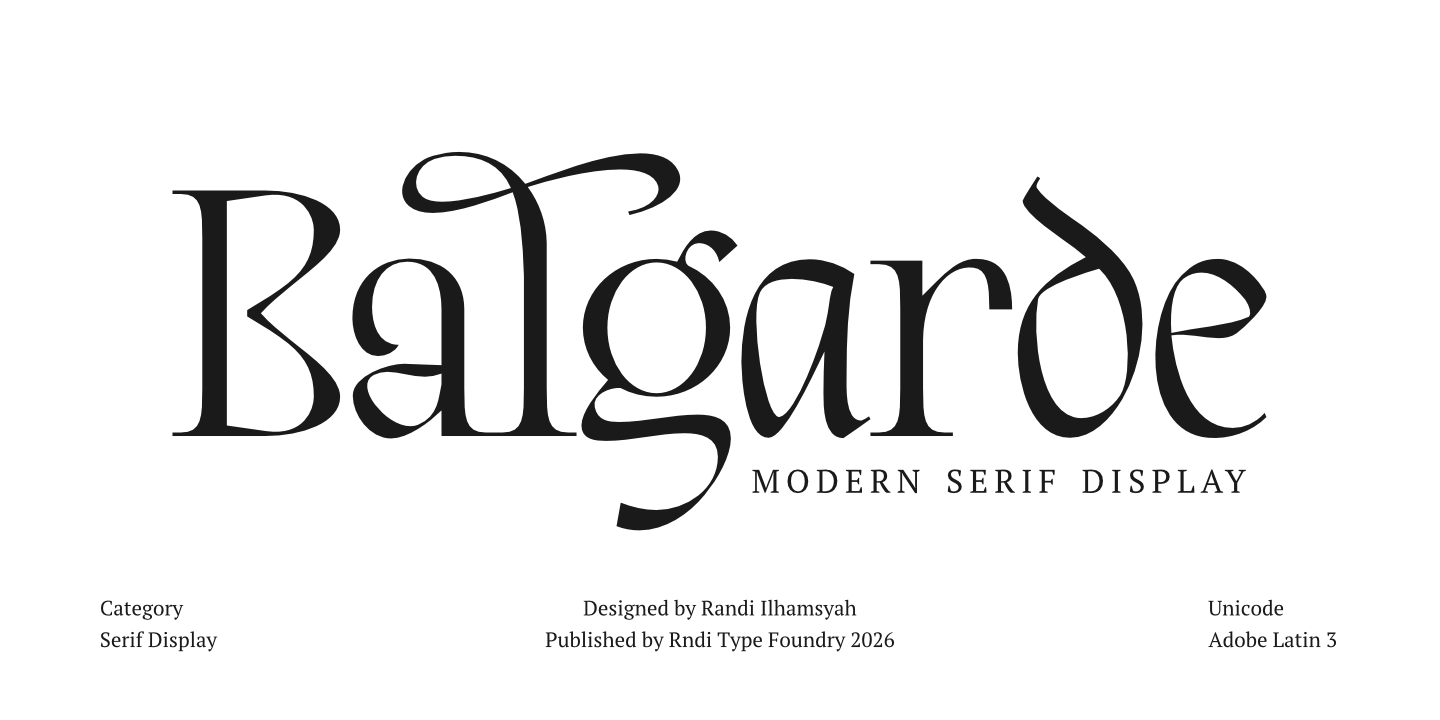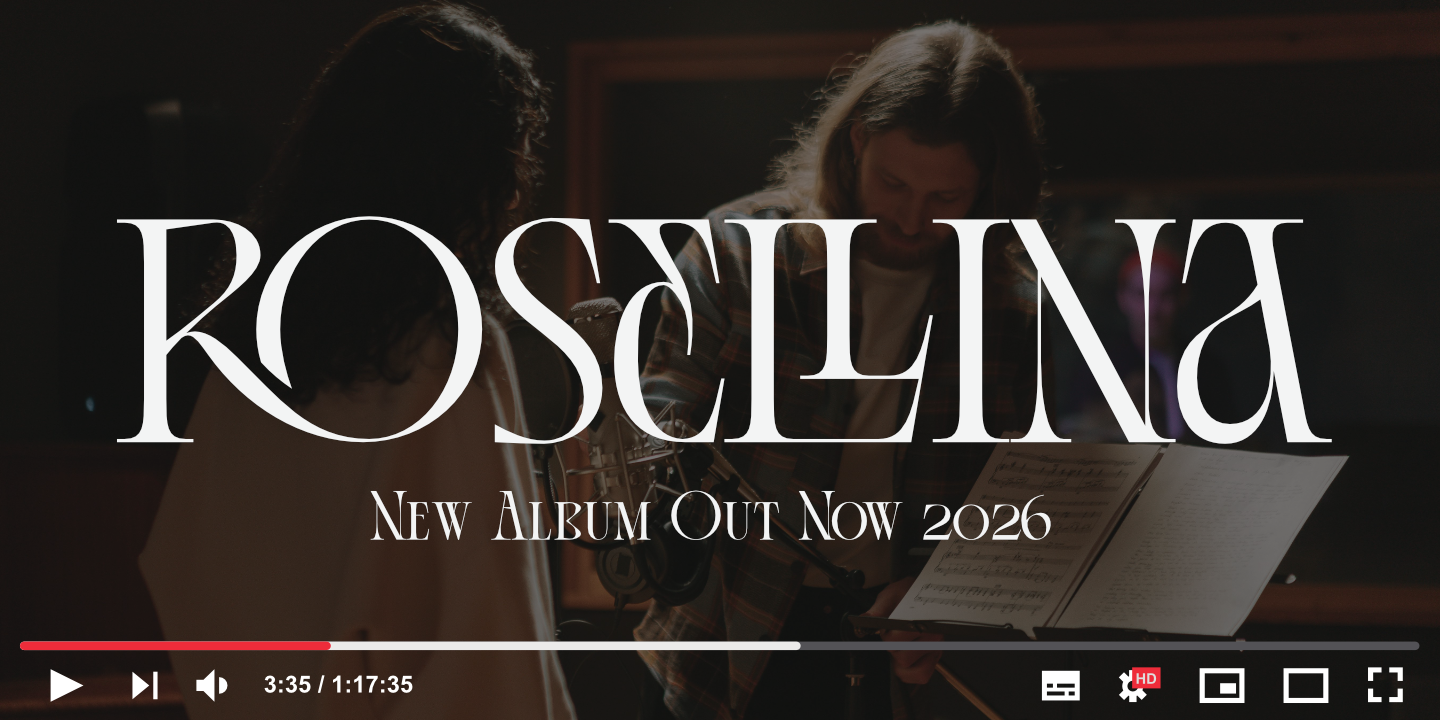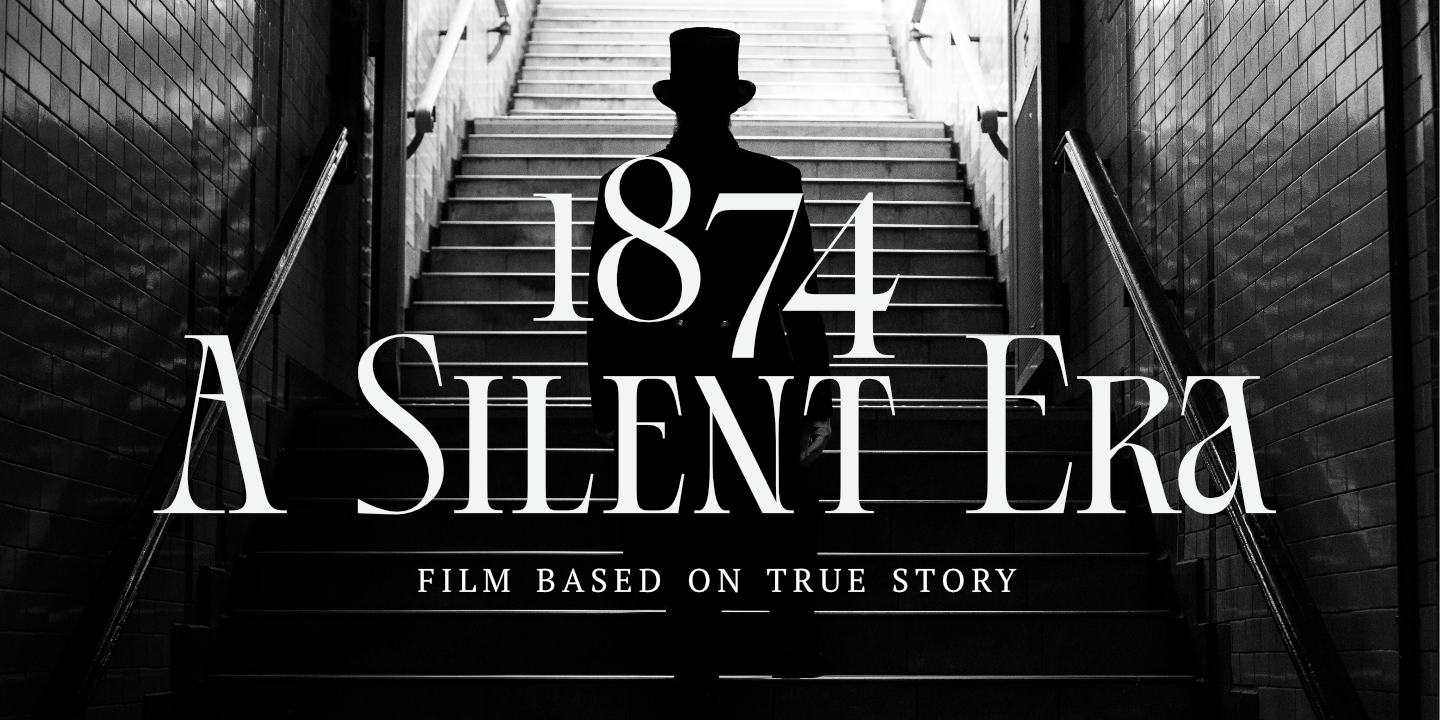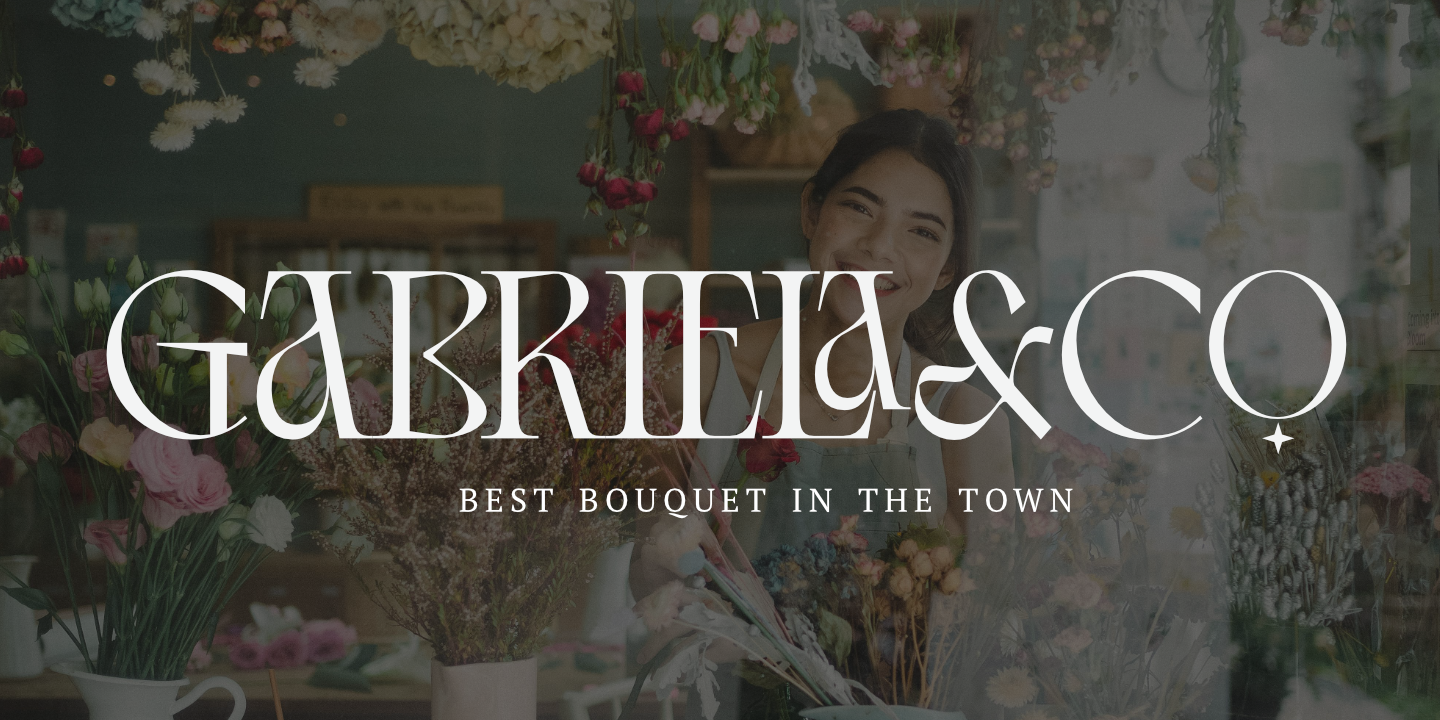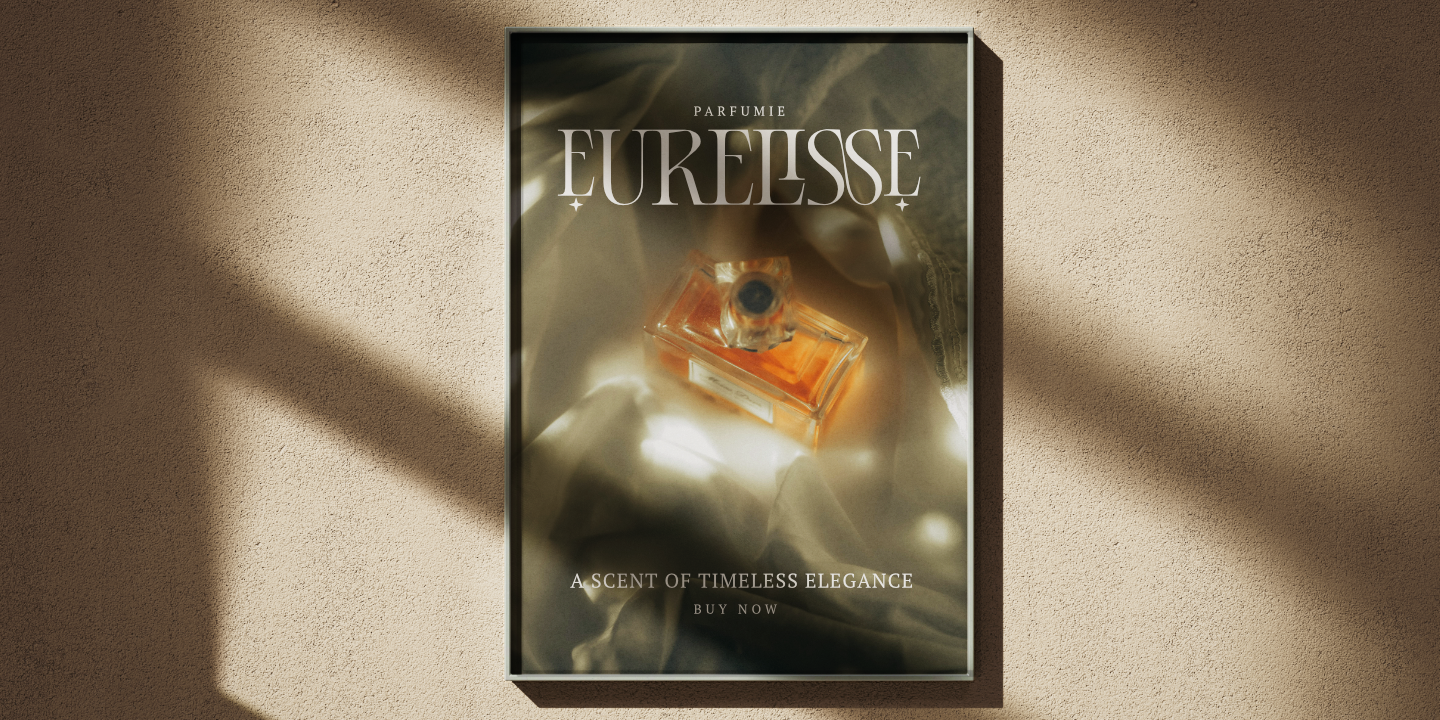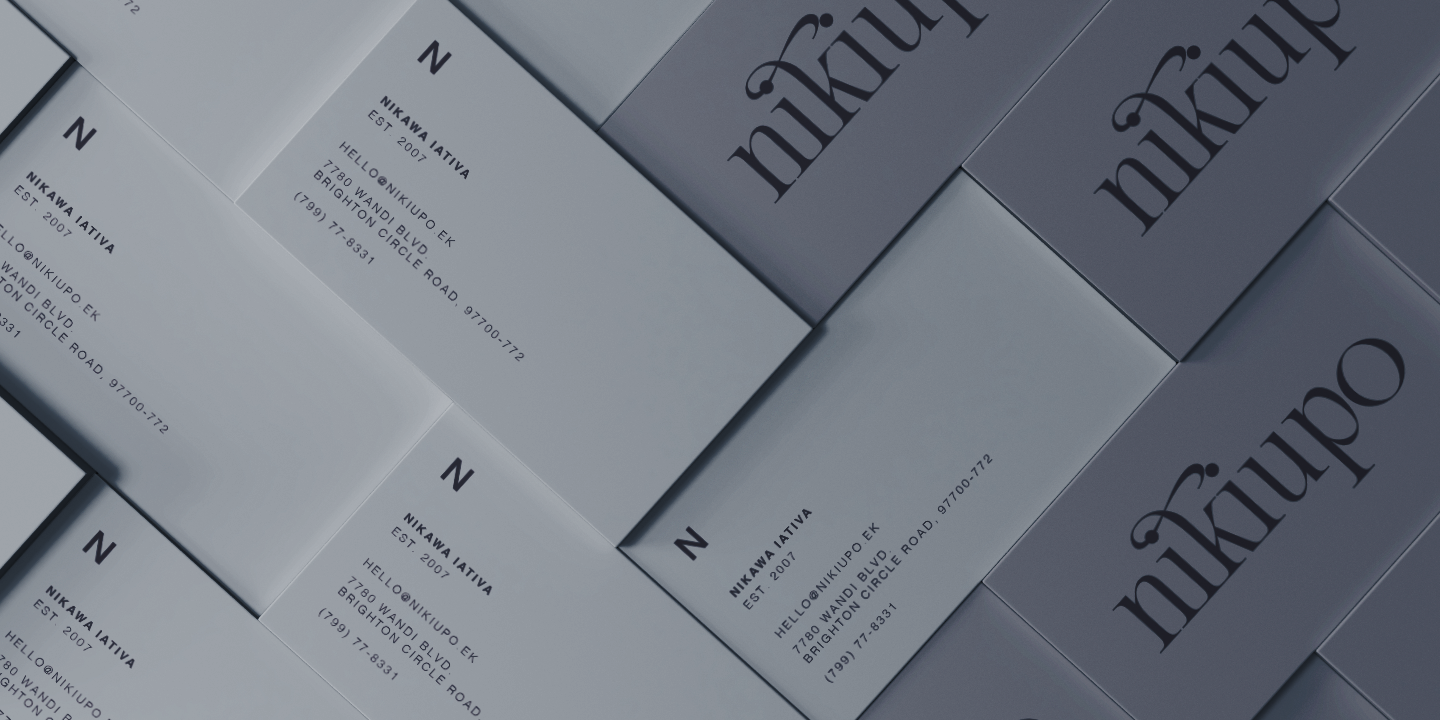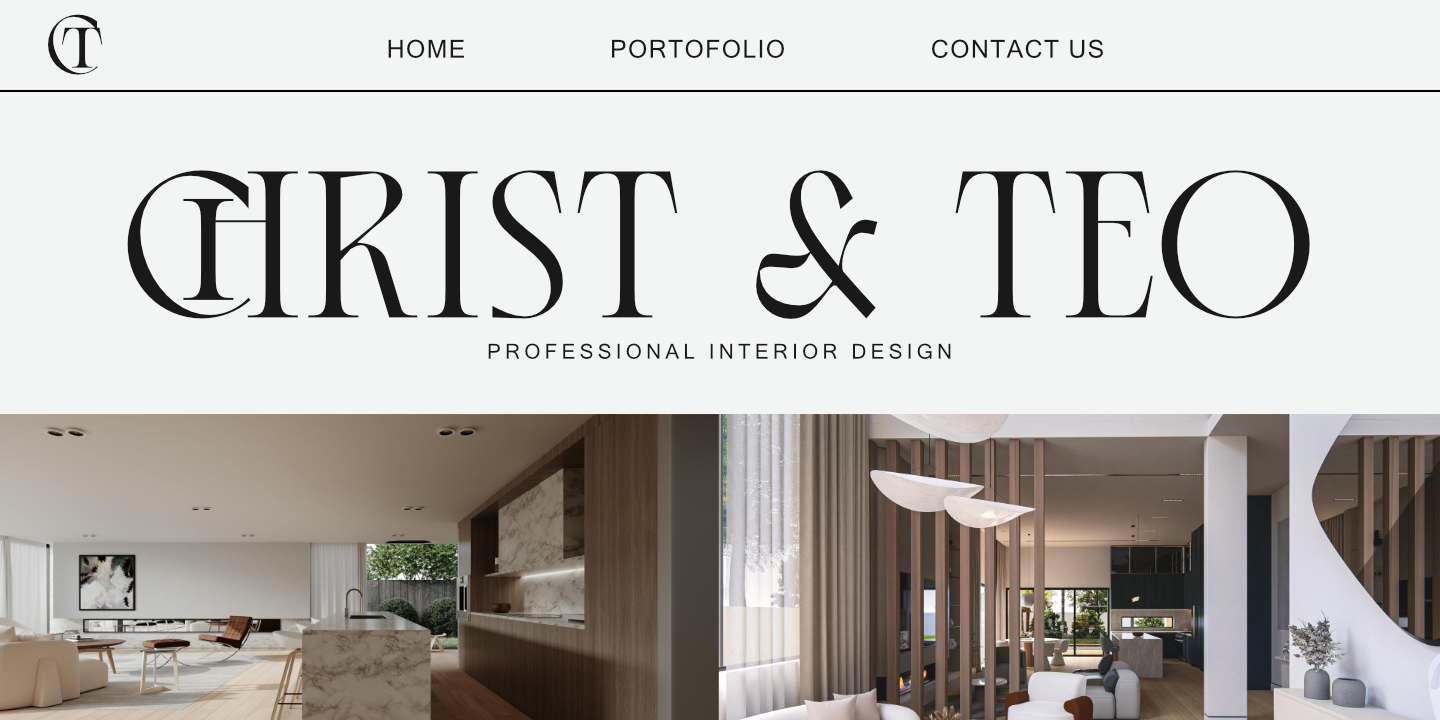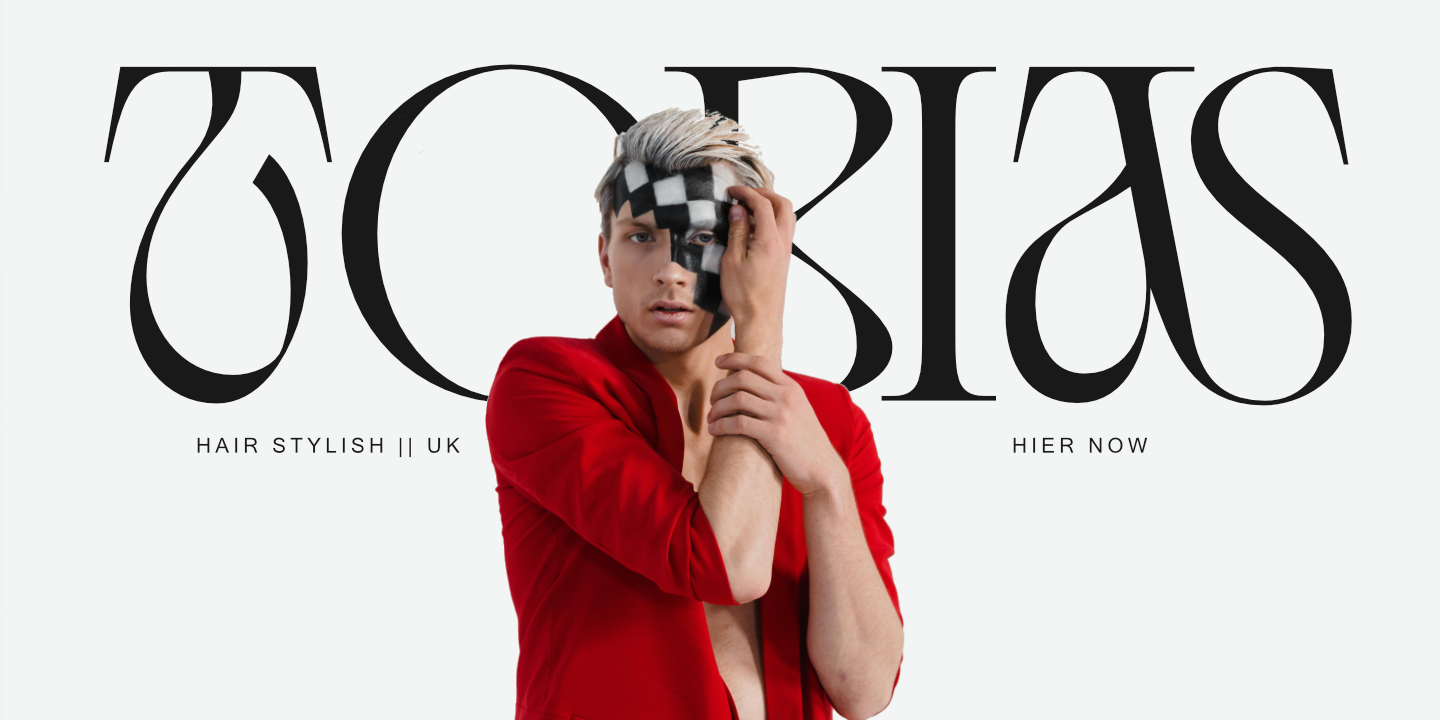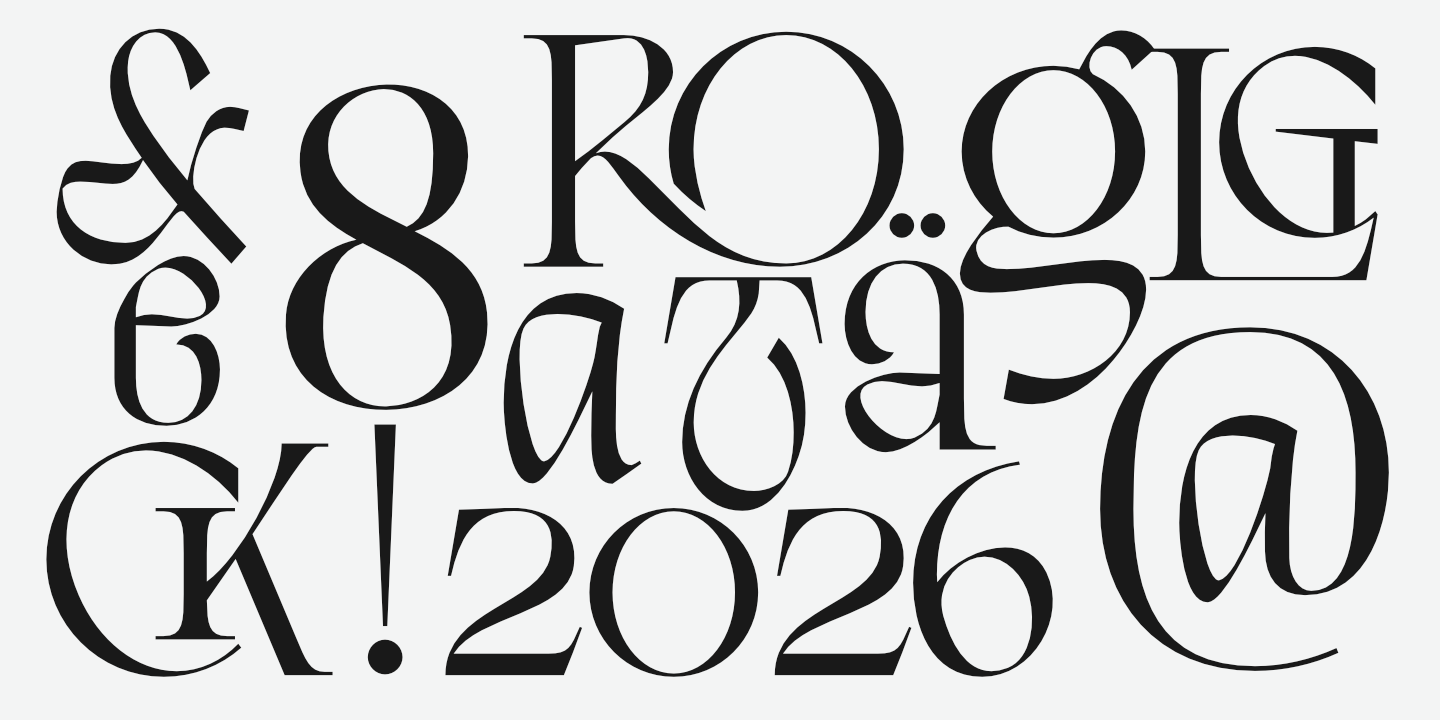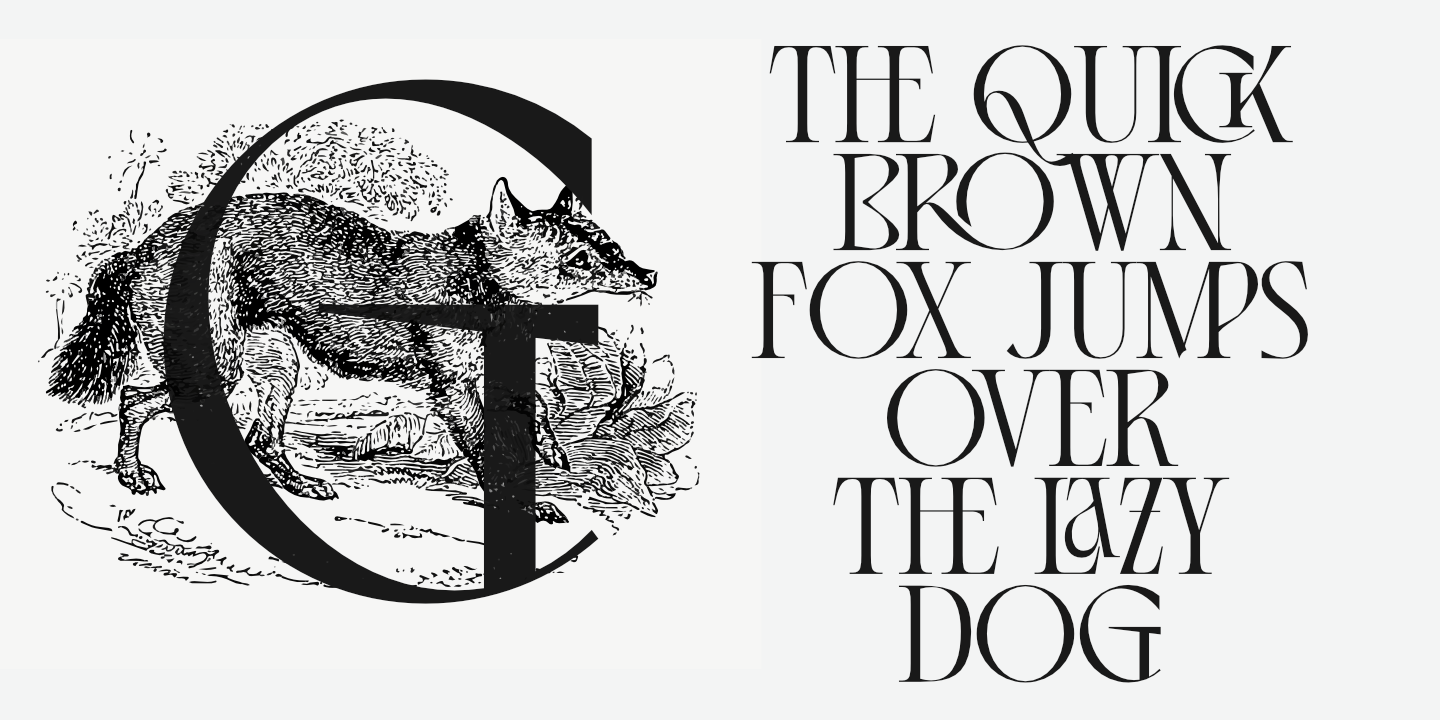
Balgarde Serif draws inspiration from classic high-contrast serif traditions, reinterpreted with a modern approach. Its design reflects the elegance of editorial typography while introducing sharper details and cleaner forms for contemporary use. Carefully crafted for display purposes, it emphasizes visual impact and refined aesthetics, making it suitable for modern luxury branding and sophisticated design projects.